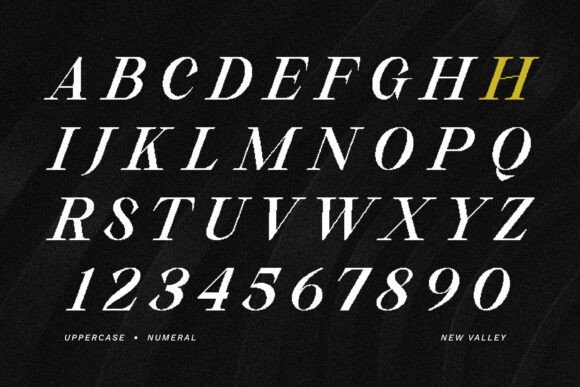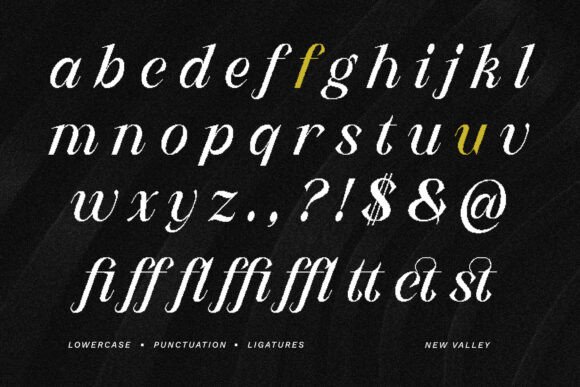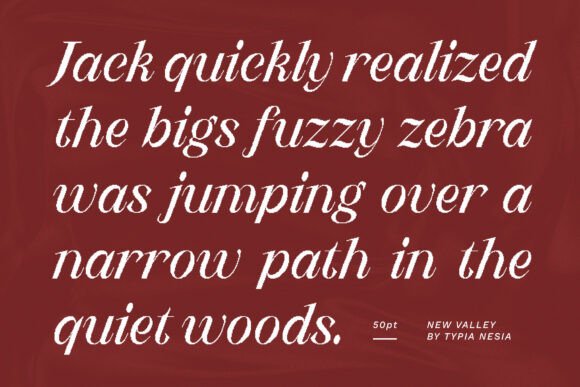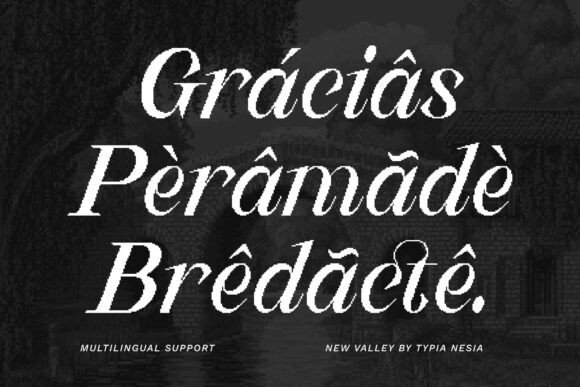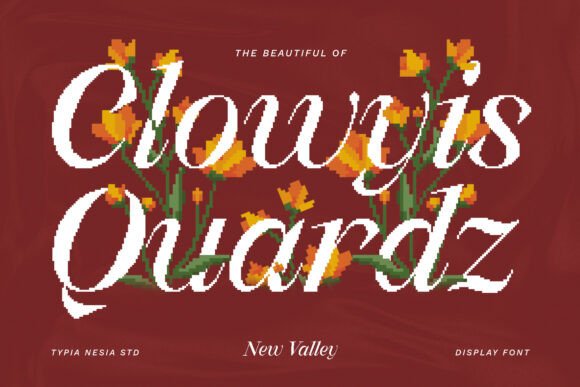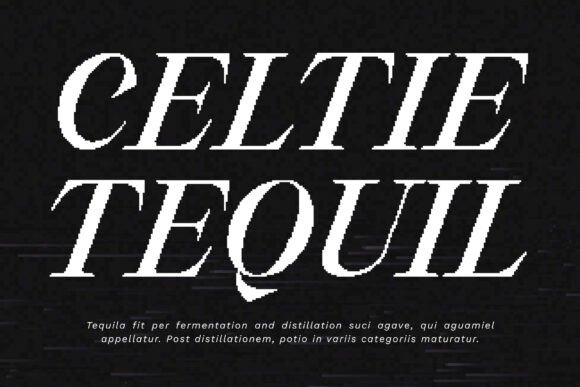
Introduction to New Valley Font
New Valley is a Pixelate Italic Serif Font that combines retro aesthetics with modern fantasy.
Its pixelated texture gives a vintage, digital feel, while the italic serif design adds a touch of sophistication This font is an excellent choice for a wide variety of design projects, including logo design, retro-themed posters, digital game titles, website headers, branding, merchandise, fantasy book covers and any design that requires a touch of pixelated look paired with the classic serif design.
Key Features of New Valley Font